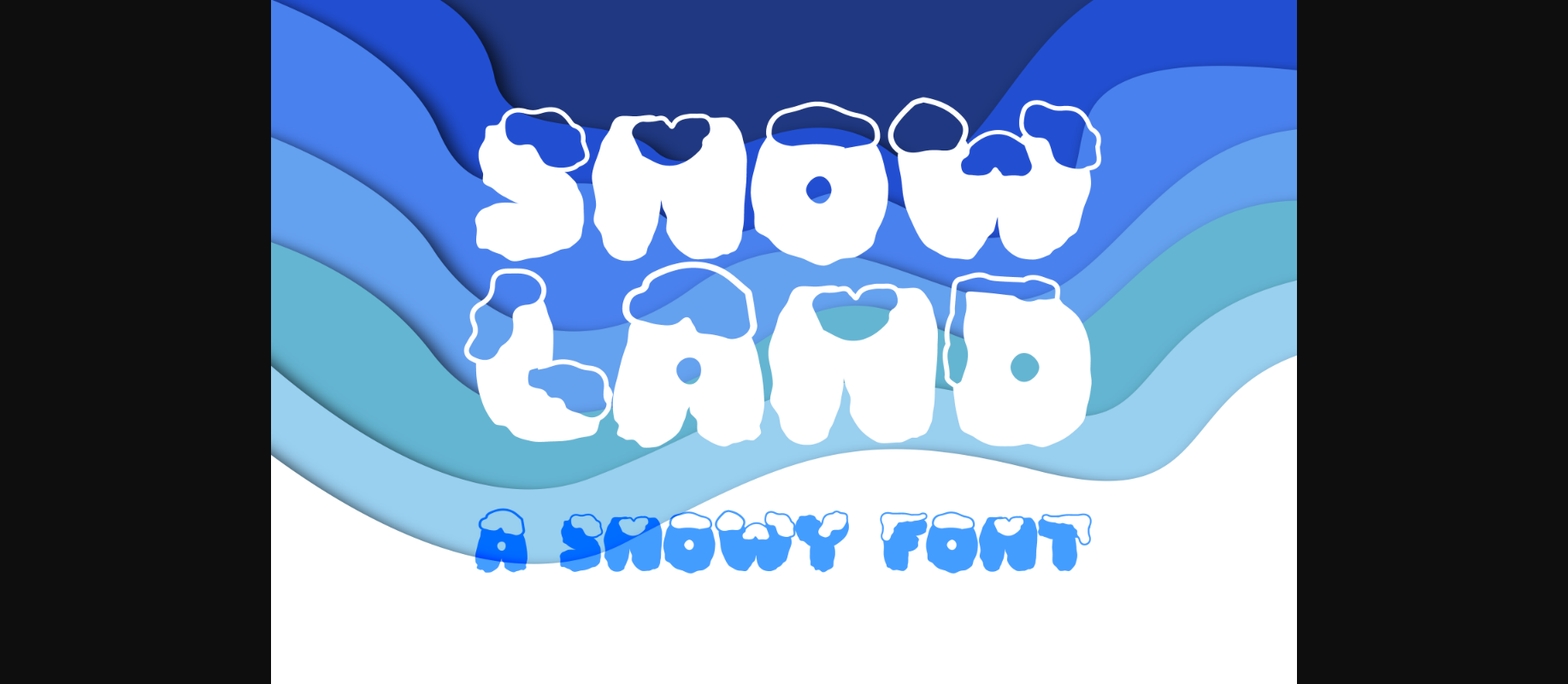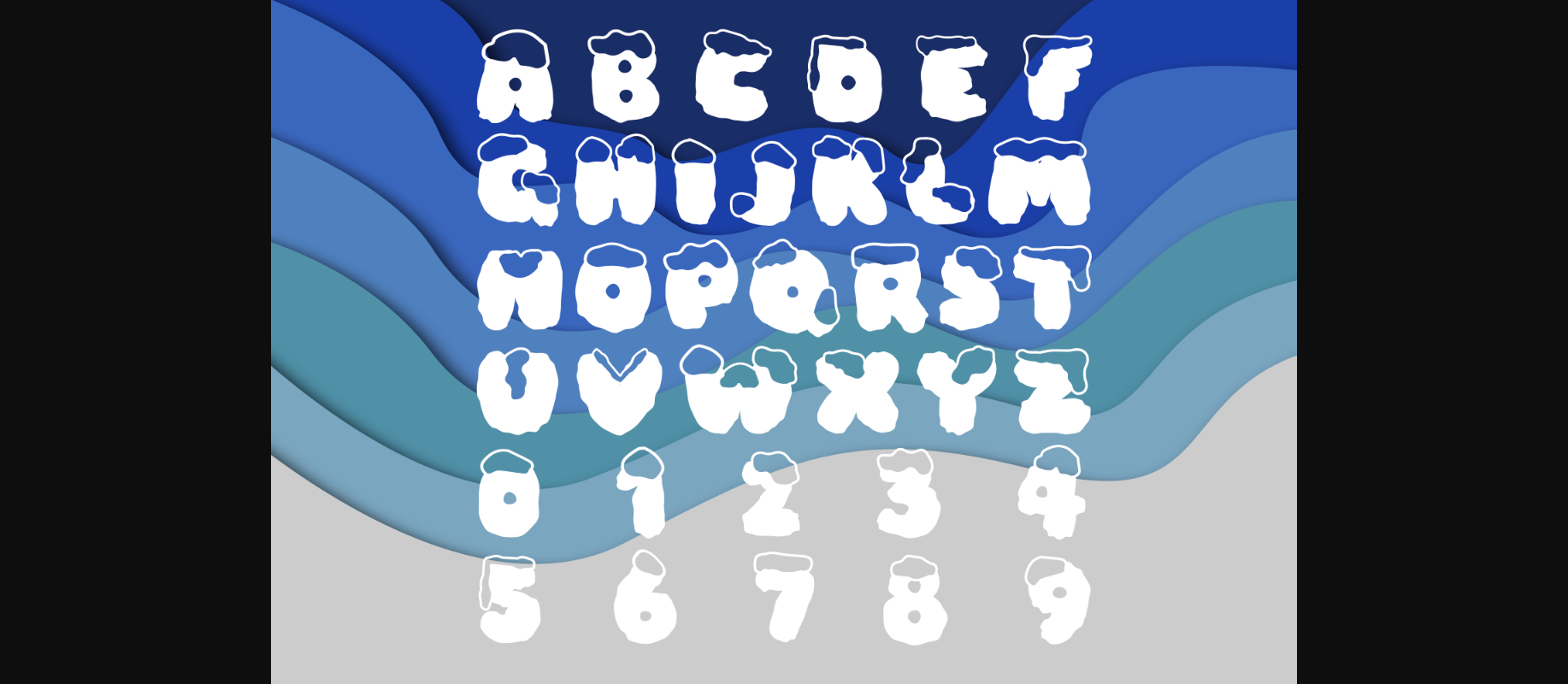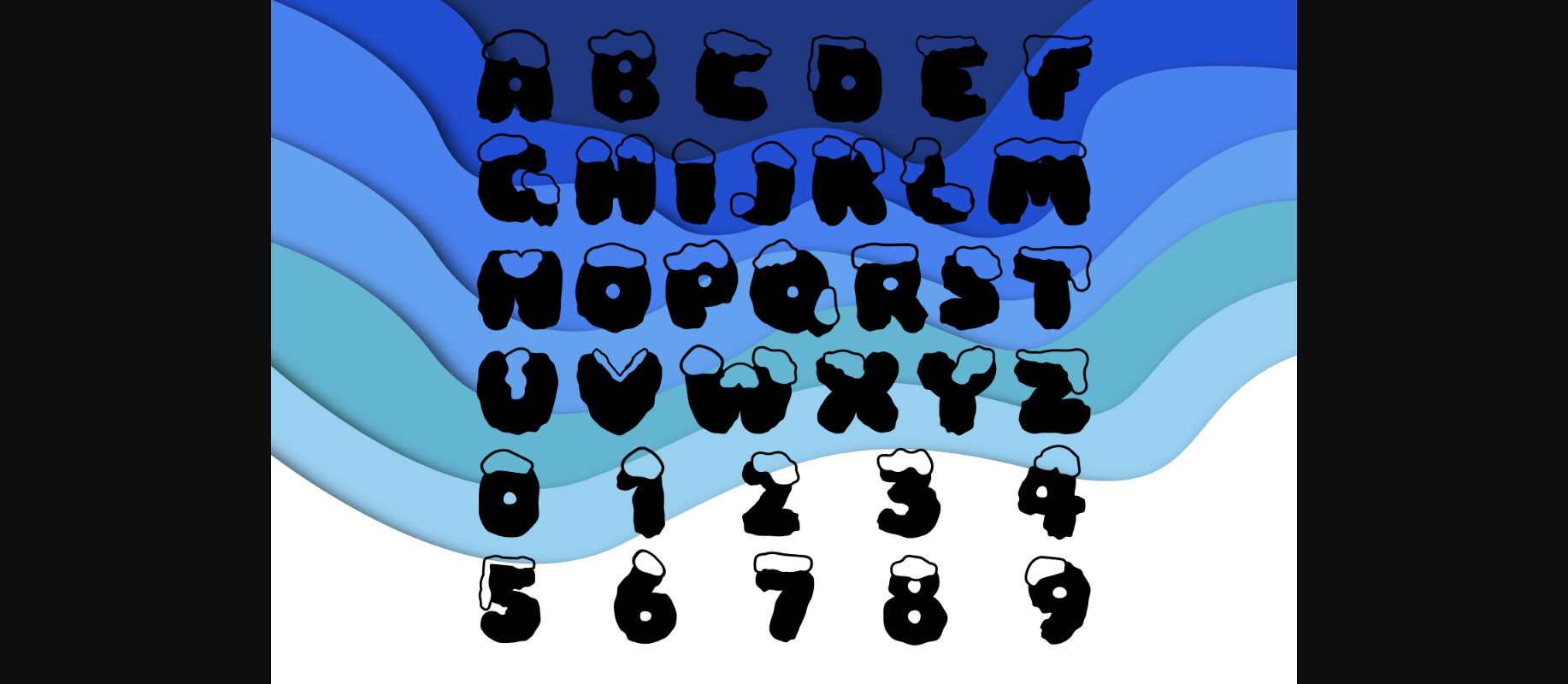
Snow Land is an incredibly cool and fun decorative font. Whether you use it for cartoon-related designs, children games, or just any creation that requires a lovely touch, this font will be an amazing choice.